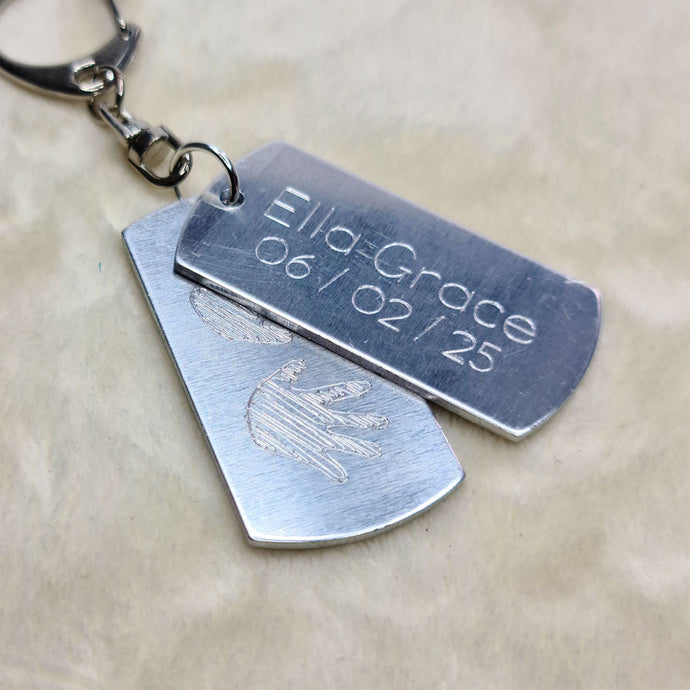
What Are Single Line Fonts Used For?
Single Line Fonts – What They Are Used For
If you've ever tried to draw or engrave text using a cutting machine, laser, or plotter, you’ve probably run into a common issue: your font looks hollow or takes forever to process. That’s where single line fonts come in. These unique typefaces are designed differently—and they open up creative possibilities that traditional fonts simply can’t match.
In this article, we’ll explore exactly what single line fonts are used for, along with real-world examples across crafting, engraving, and design.
🖋️ Pen Plotting & Drawing Machines
Single line fonts are ideal for pen plotters and smart cutting machines like Cricut, Silhouette, and Brother ScanNCut. These machines use pens to draw designs, and single line fonts ensure that each letter is rendered with a single stroke, resulting in clean and efficient output.
Common projects:
- Handwritten-style notes
- Journaling layouts
- Custom illustrations
- Greeting cards with hand-drawn text
Example: The SLF Pinwheel font, with its playful curves, is perfect for lighthearted projects like scrapbook journaling and invitations.
✨ Foiling with Foil Quill or Foil Transfer Tools
Foiling tools apply metallic foil using pressure or heat. Single line fonts are essential here, as they allow for precise and elegant foiled text without bulky fills or unnecessary outlines.
Common projects:
- Wedding invitations
- Holiday cards
- Gift tags
- Elegant packaging
Example: SLF White Linen offers a flowing, formal script ideal for wedding stationery and foil quilling projects.
🔥 Laser Engraving & Etching
Laser machines like Glowforge and xTool benefit from the efficiency of single line fonts. Traditional fonts require multiple passes, but single line fonts enable faster engraving with cleaner results.
Common materials:
- Wood
- Acrylic
- Leather
- Metal (jewelry, tags, bracelets)
Example: SLF Timepiece is a stylish, understated font suitable for engraving on various materials, including acrylic and wood.
🛠️ CNC Machines & Rotary Tools
CNC routers and rotary engravers require precision. Single line fonts reduce tool wear and produce clean results on rigid materials.
Common applications:
- Nameplates
- Signage
- Custom awards
- Industrial labeling
Example: SLF Lean This Way offers a dressy script perfect for elegant signage and invitations.
📨 Embossing & Scoring
For projects involving scoring fold lines or embossing, single line fonts provide cleaner results due to their minimalistic design.
Popular uses:
- DIY stationery
- Foldable boxes
- Pop-up cards
- Embossed thank-you notes
Example: SLF Winter's Eve is a print-type font with a twist of personality, suitable for card making and scrapbooking.
💻 Digital Uses (Sketch Filters, Stippled Art, CAD Software)
Single line fonts are valuable in digital workflows, especially for stylized line art, laser-ready layouts, or technical drawings.
Examples:
- Minimalist logos
- Engineering labels
- Mockups for laser cutouts
- SVG line-art typography
Example: SLF Tangent Sans is a sleek, modern font designed for clarity and effortless readability, making it suitable for digital applications.
- TTF (TrueType Font): Compatible with most design software.
- OTF (OpenType Font): Often used with FontLab Pad for creating true single-line text blocks.
- OPF (Open Path Font): Designed for specific cutting and engraving software.
Example: SLF Yours Truly is a versatile option with a casual, handwritten style that's especially popular for notes, cards, and personalization projects.
Conclusion
Single line fonts are versatile tools that enhance the quality and efficiency of various creative projects, from pen plotting and foiling to laser engraving and digital design. By choosing the right single line font for your specific application, you can achieve professional and polished results.